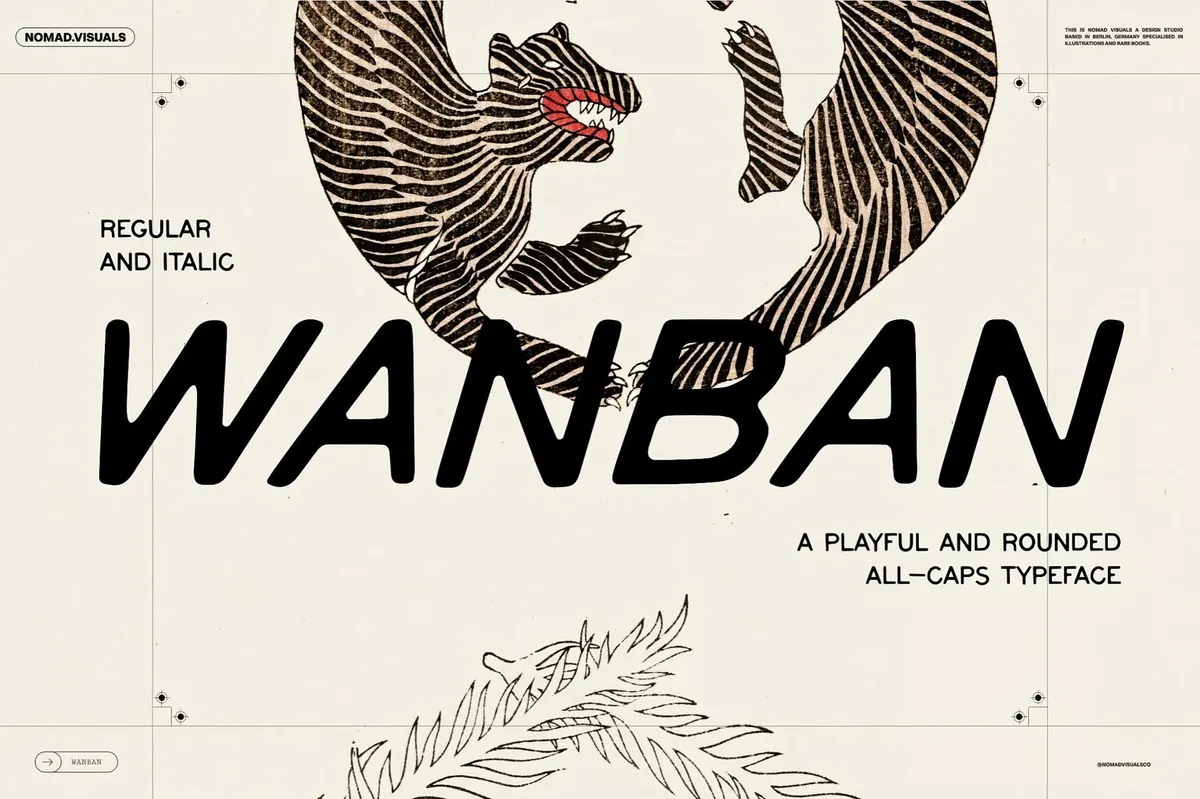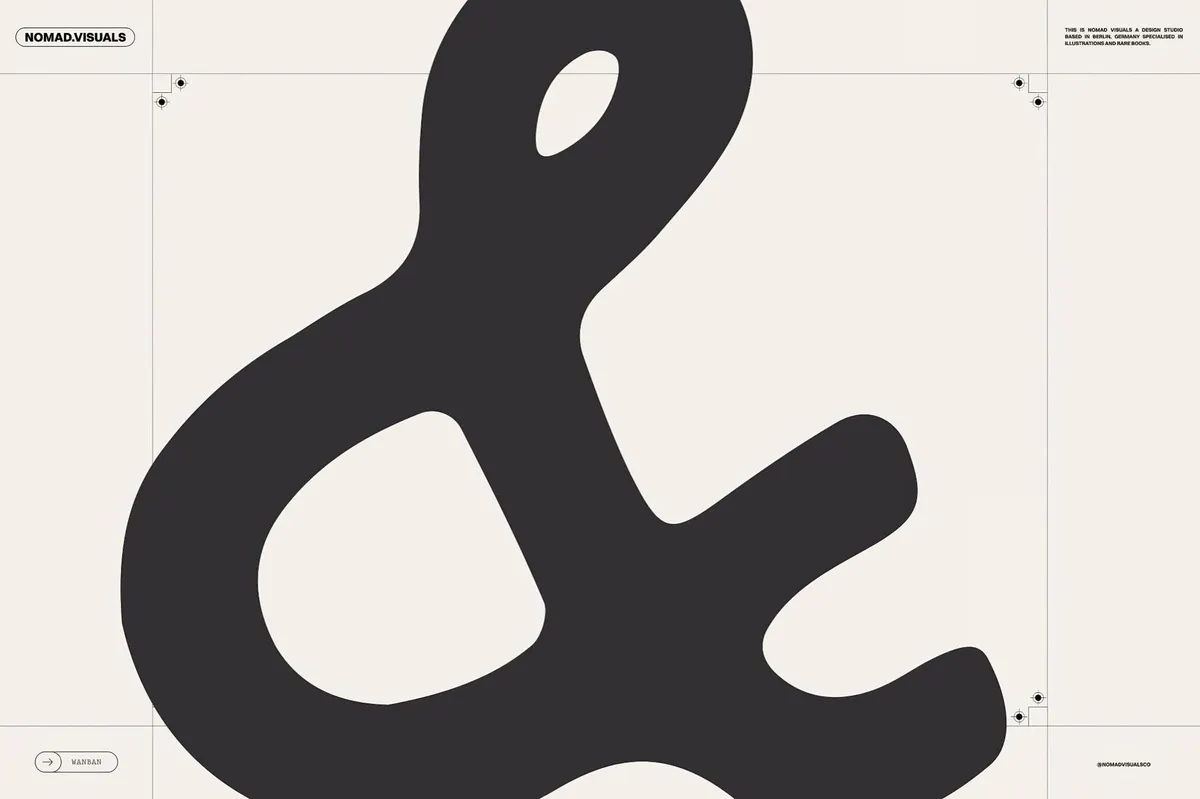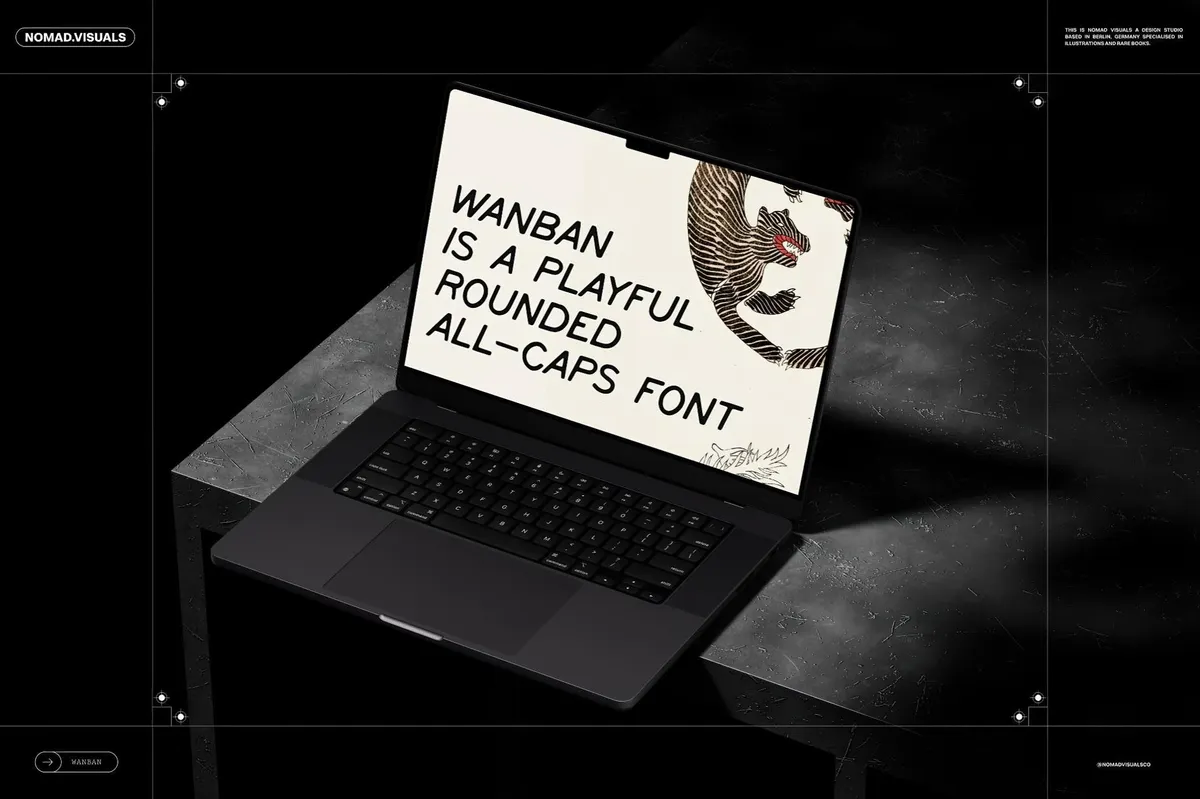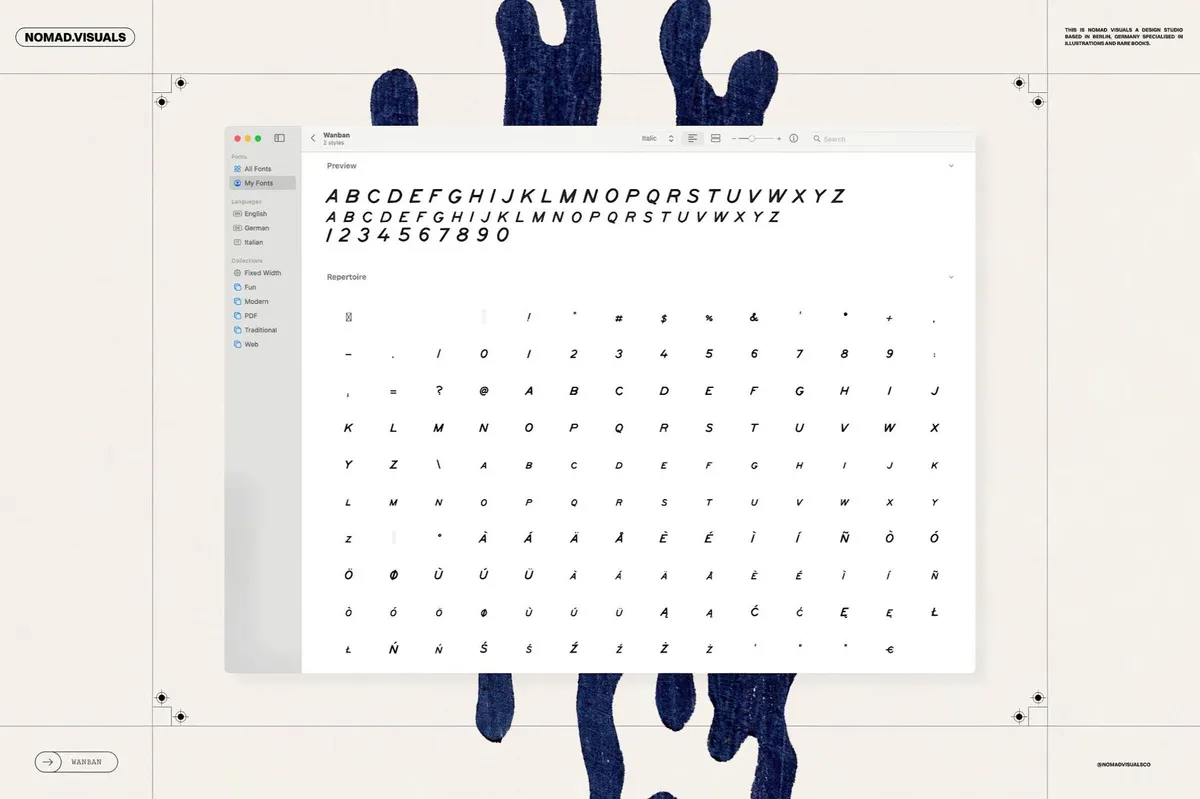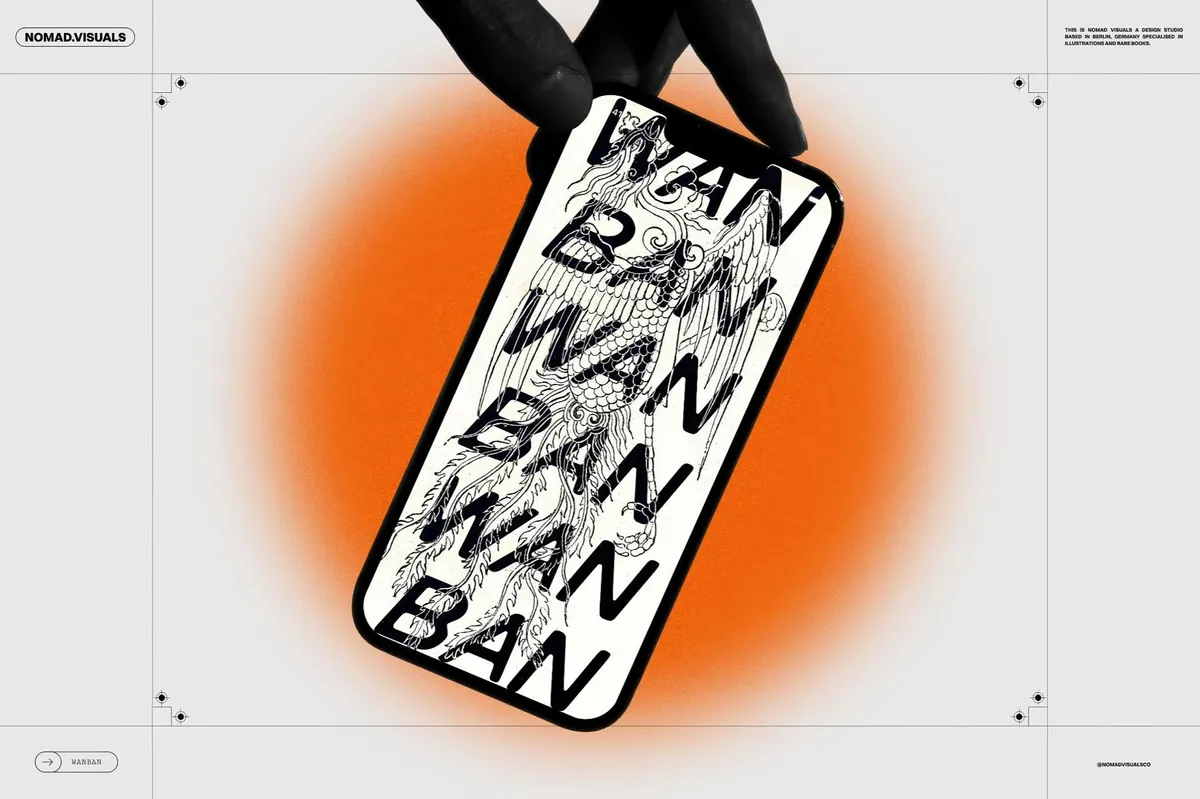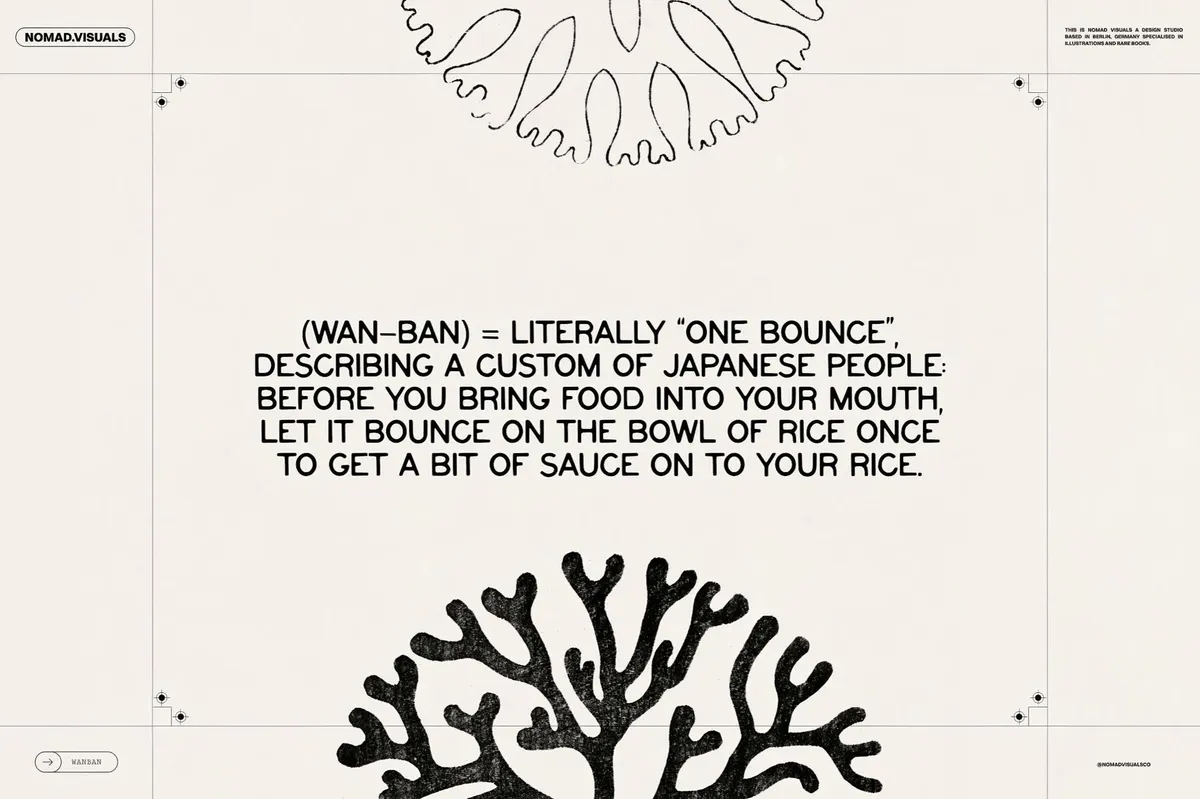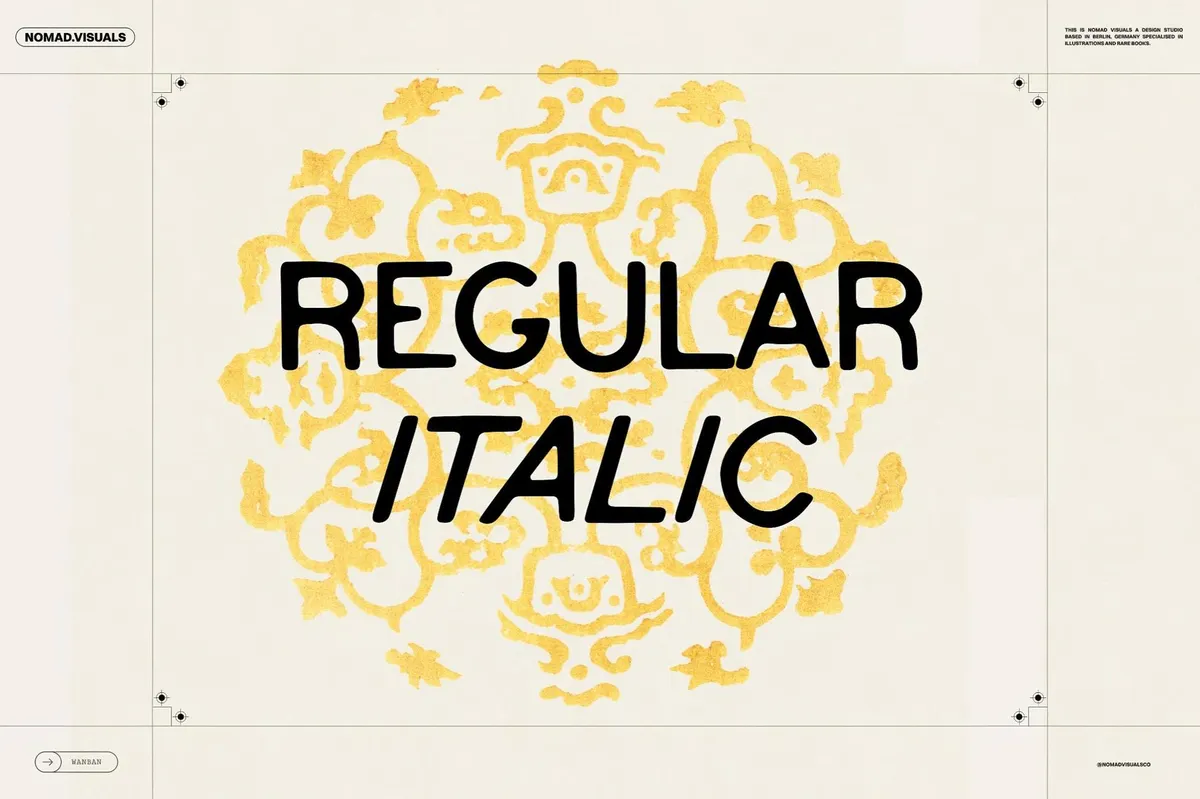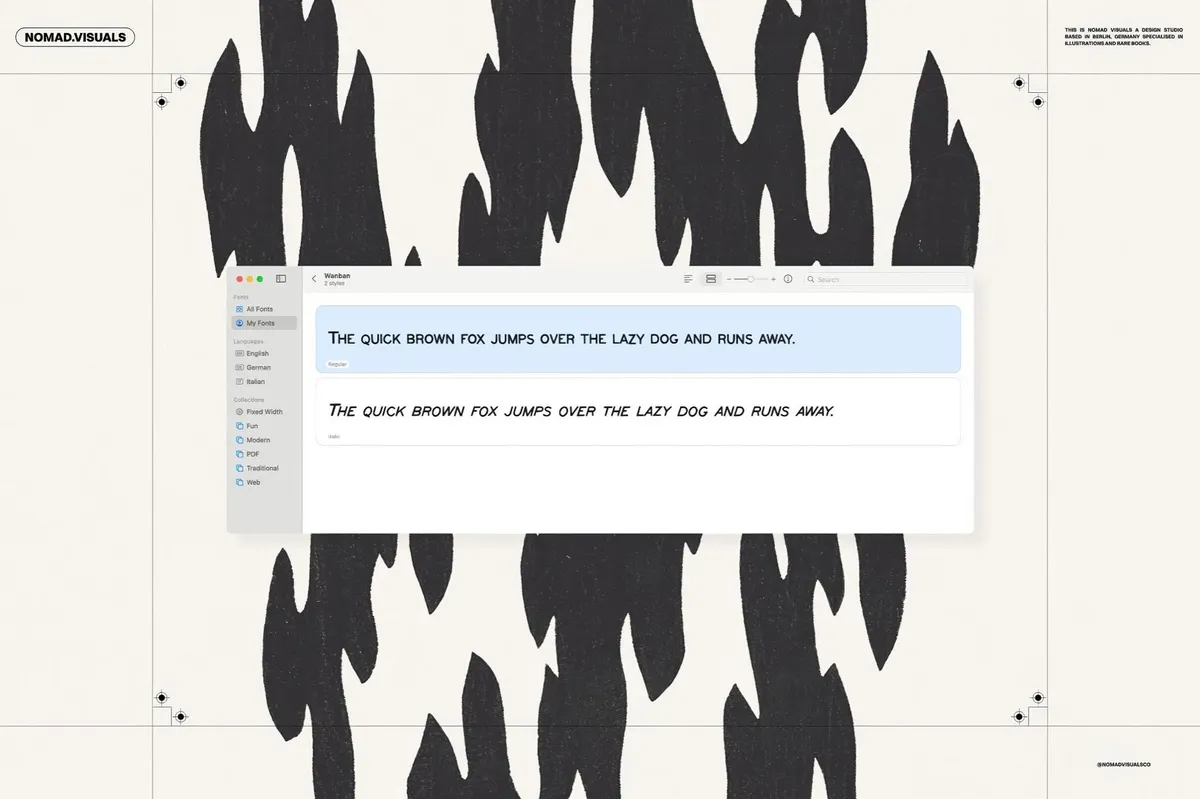
Wanban All-Caps Font
Wanban is a rounded, all-caps typeface created with precision and playfulness in equal measure. Its softened geometry and subtle hand-drawn character give it a distinct warmth — one that feels approachable yet deliberate.
Wanban comes in Regular and Italic. Each style includes uppercase letters, numerals, punctuation, and an expanded Latin character set with multilingual support. Whether used in a modern layout or layered into vintage-inspired graphics, Wanban holds its own — quietly bold, confidently rounded. Ideal for branding, editorial titles, packaging, and digital interfaces